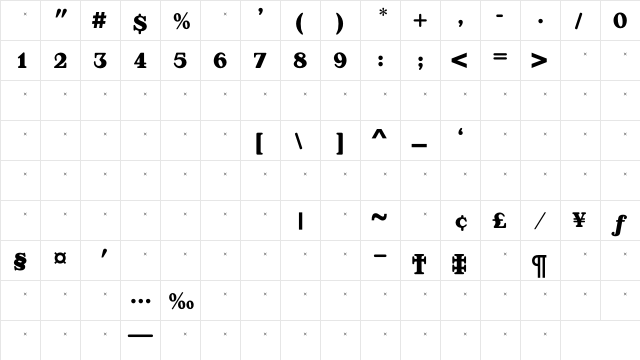
AppleyardBoldTab Regular
Design Context for AppleyardBoldTab Typeface
AppleyardBoldTab takes a measured approach to typography — its balanced proportions and neutral character make it a reliable workhorse for both digital and print work. The heavy weight commands attention and anchors typographic hierarchies.
Pro Tip: Pair AppleyardBoldTab with a font of contrasting weight or personality to build a more expressive typographic hierarchy.